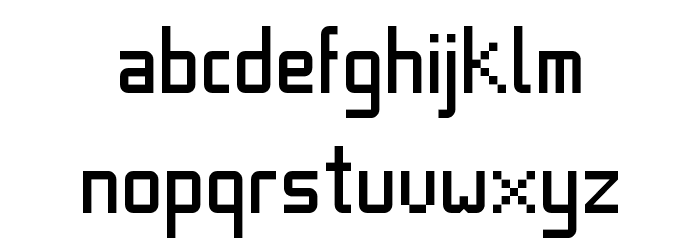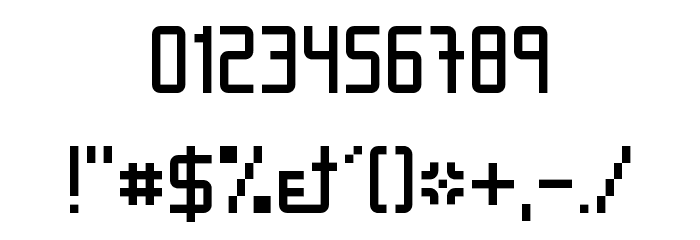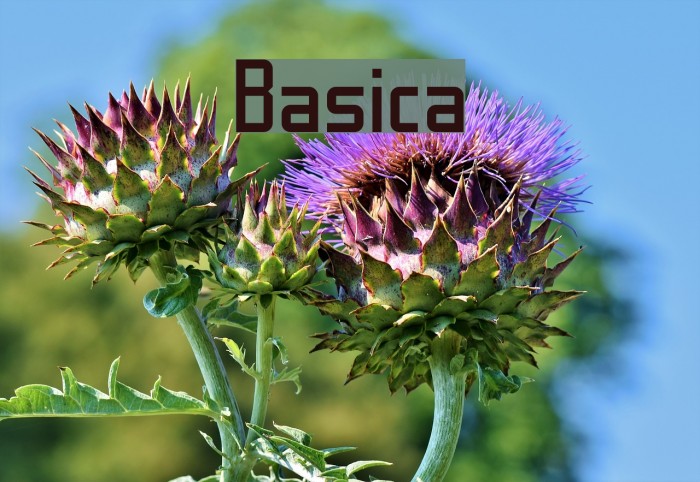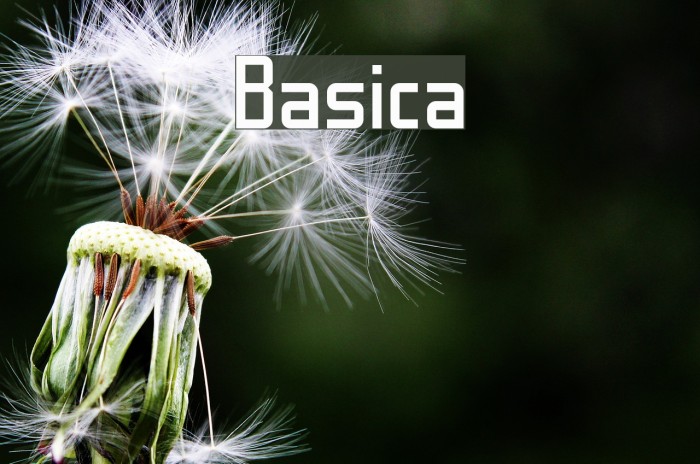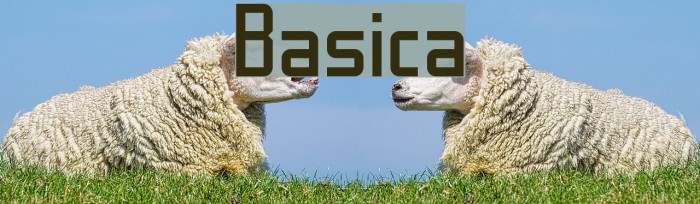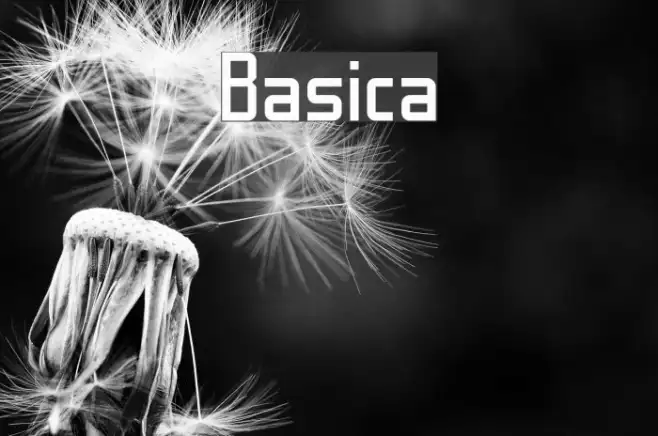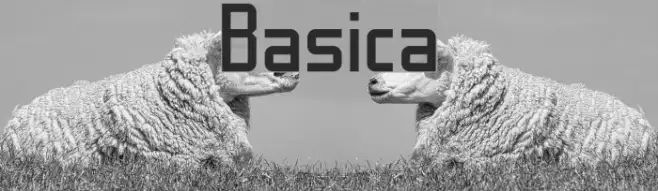
Basica Font
This font features a geometric and pixelated design, reminiscent of early digital typefaces. The characters are constructed with a grid-like precision, giving it a distinctly retro and tech-inspired appearance. The uppercase and lowercase letters maintain a consistent height and width, contributing to a uniform and structured look. The numerals and special characters follow the same design principles, ensuring coherence across all glyphs. This font's simplicity and clarity make it suitable for digital displays and projects that require a modern yet nostalgic feel.
A geometric, pixelated font with a retro digital aesthetic.
- Proposed Projects: Ideal for video game design, tech-themed branding, digital art projects, and retro-style websites.
- Overall Style: Modern, Retro
- Use Case: Headlines, Logos, Digital displays